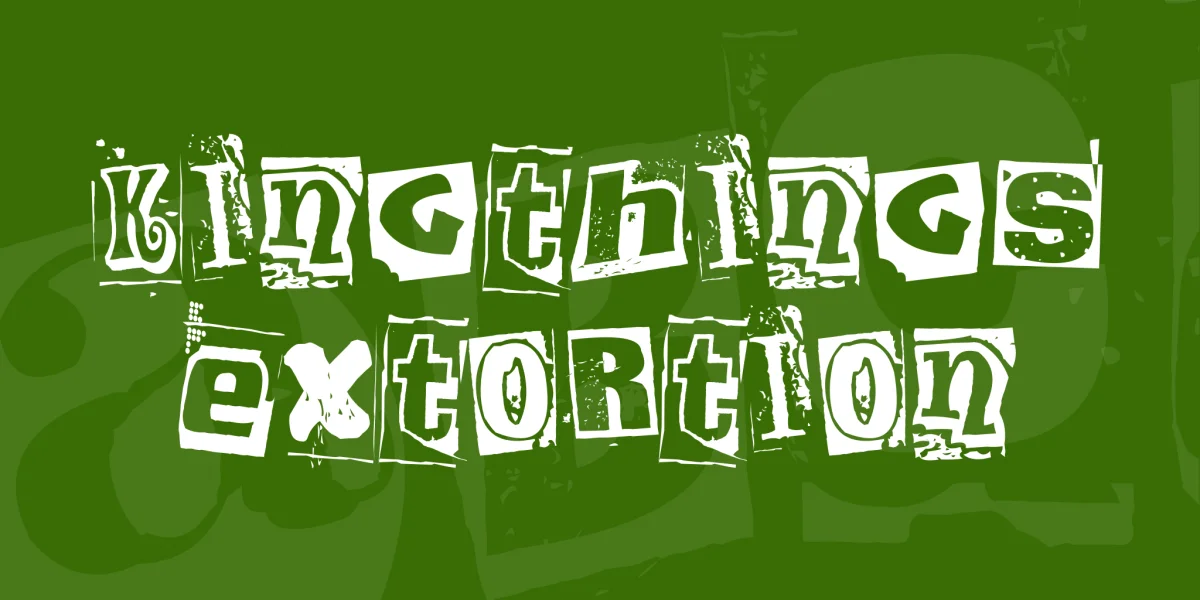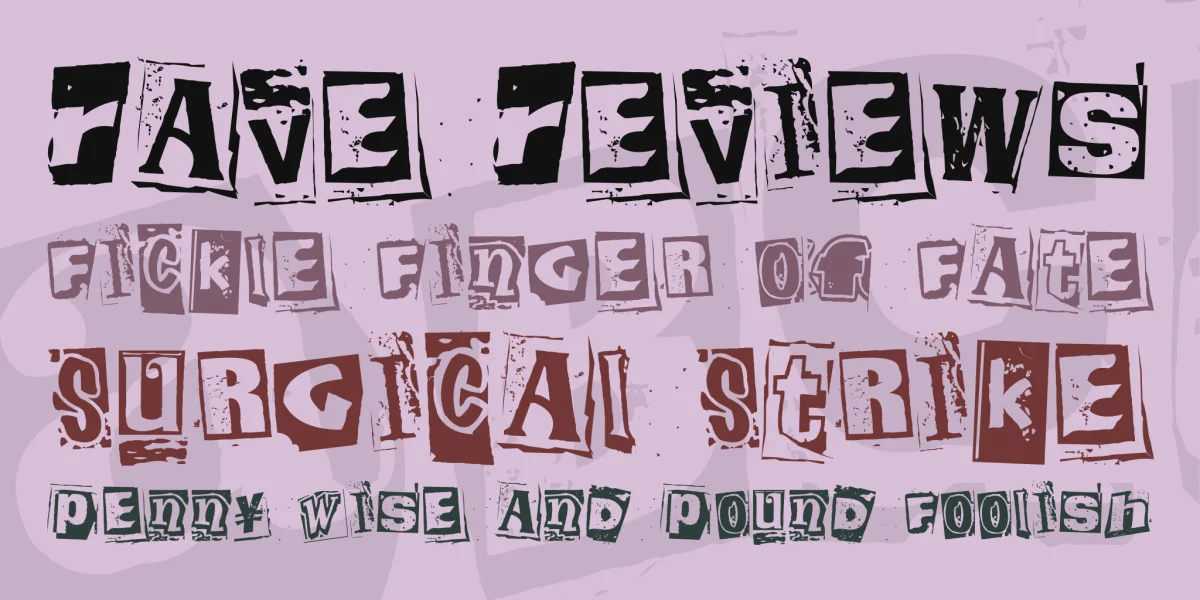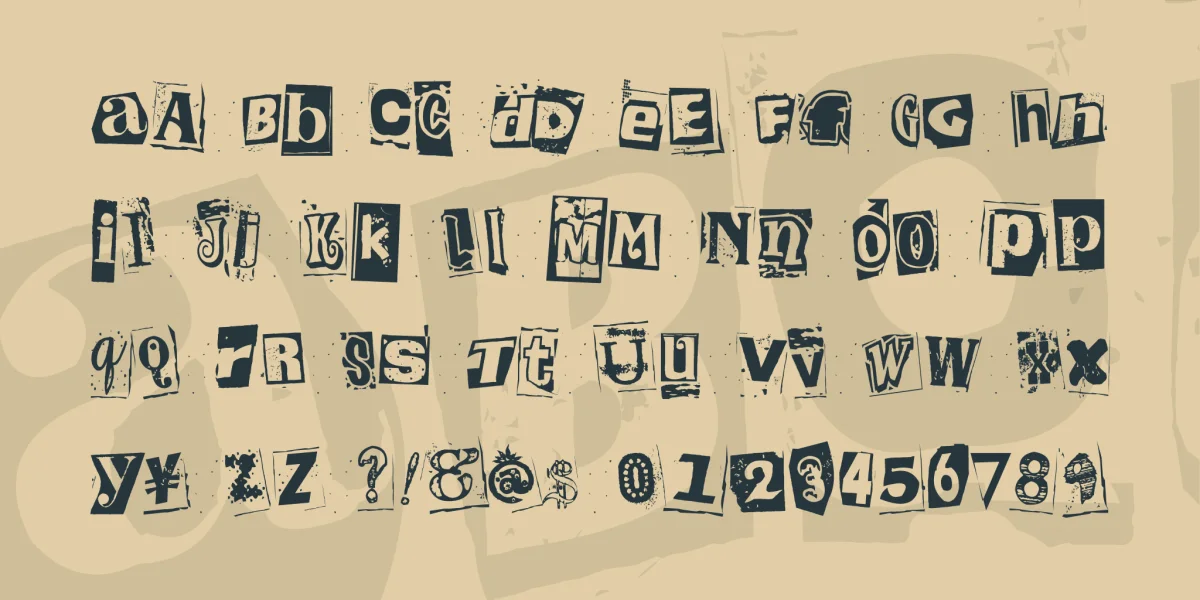
has taken a while to get right - I felt that a supposed 'ransom note' font should at least try to look a little random - as if torn out and pasted up - hence no upper or lower case as such, just letters to interchange. It works best if you try a mixture of capitals and lower case letters, and then go through your document to see where double usage occurs.